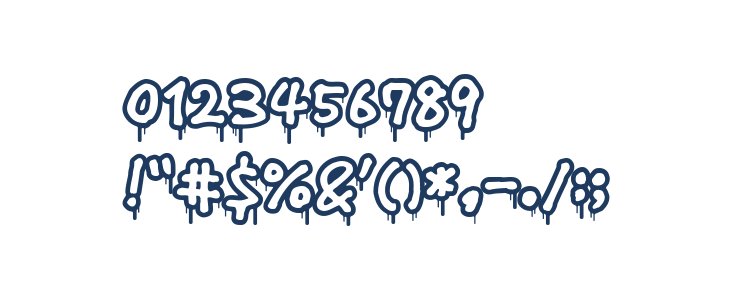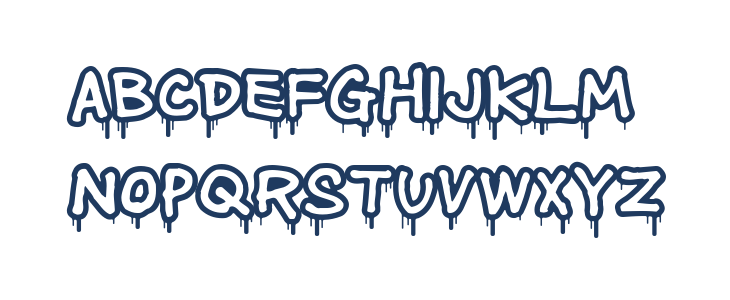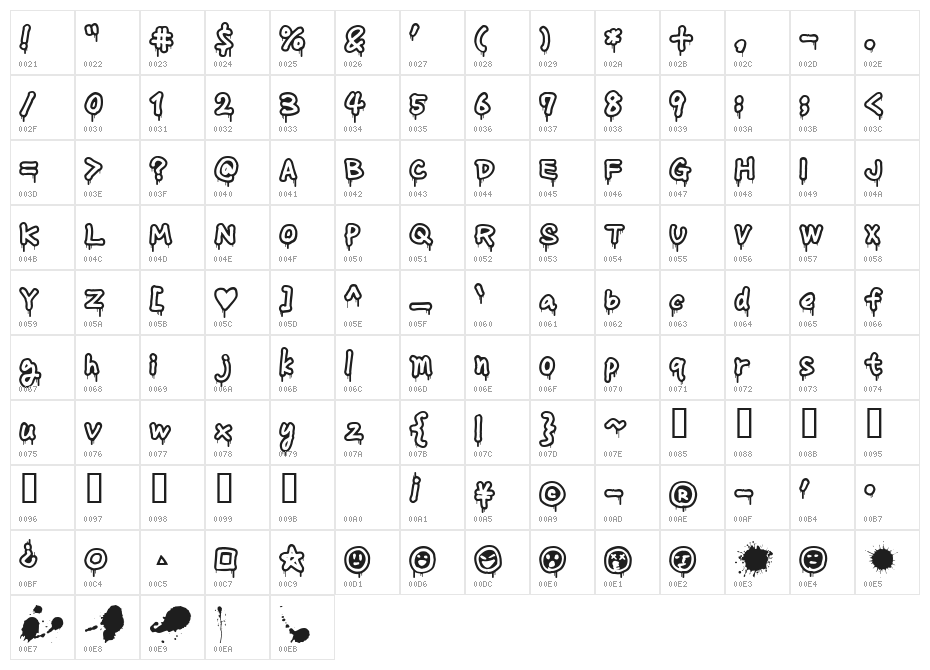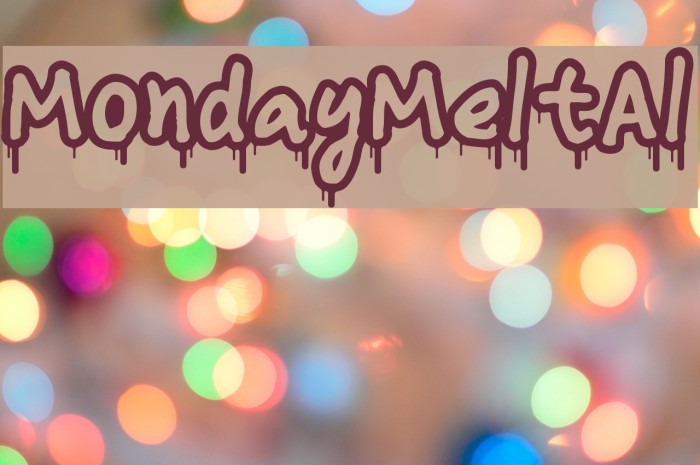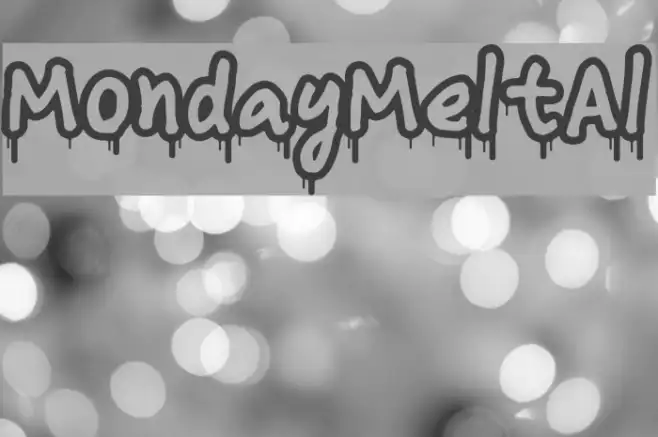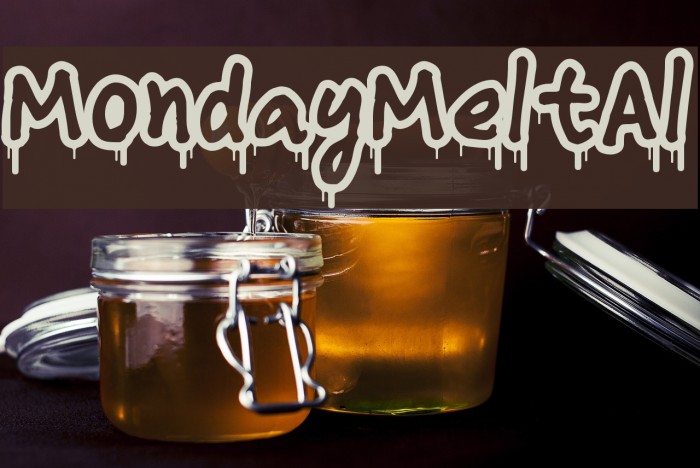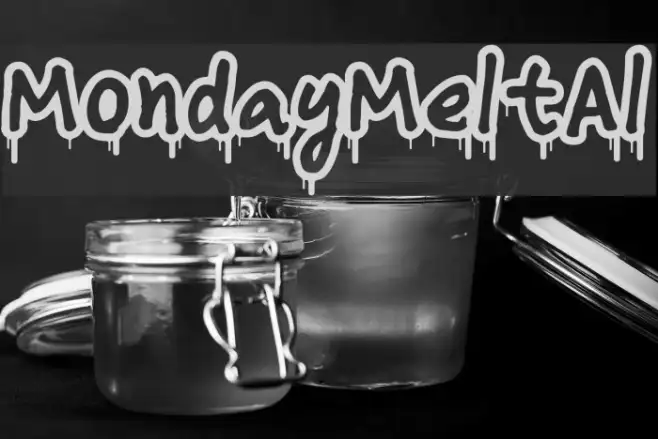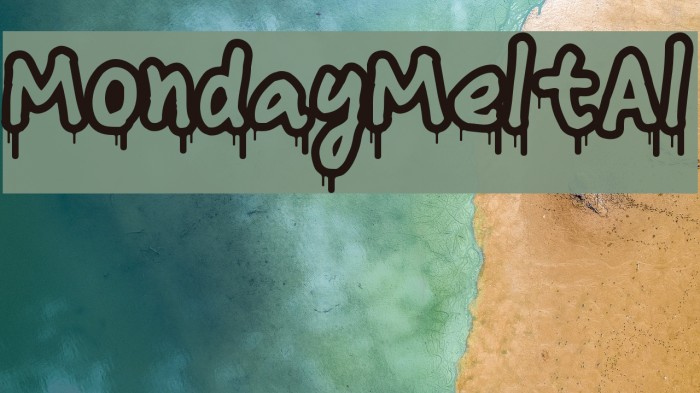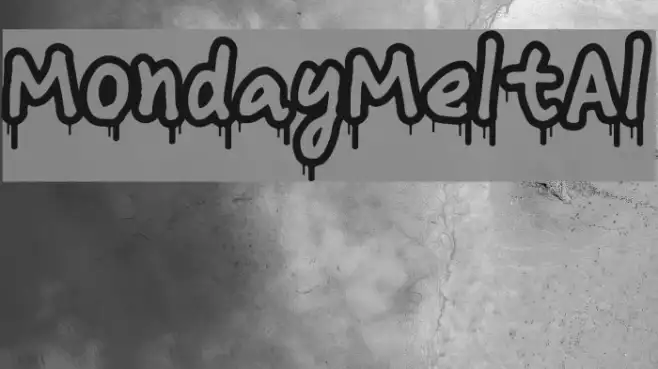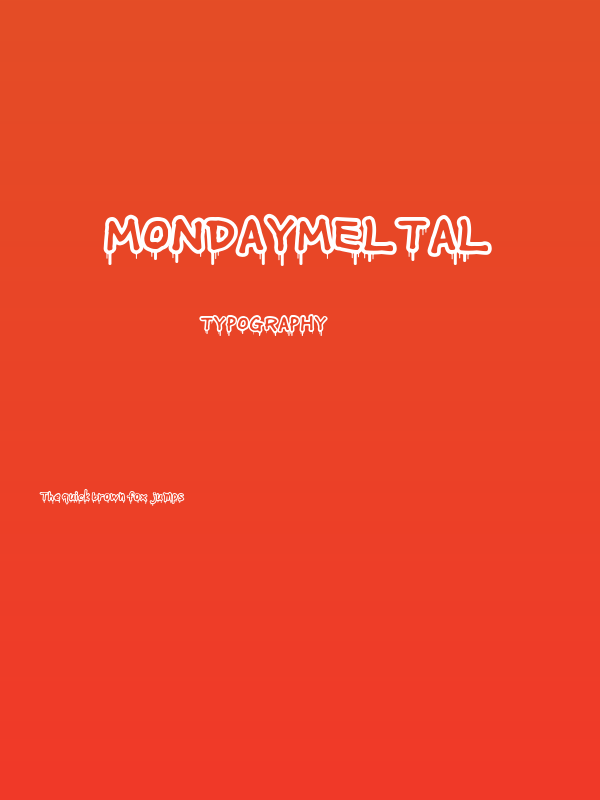
MondayMeltAl Font
MondayMeltAl Description
This playful and eye-catching font features a unique dripping effect, giving the impression of melting or liquid letters. The bold, rounded characters are outlined, creating a striking contrast between the thick black borders and the white interior. The font's whimsical style is reminiscent of graffiti or street art, making it ideal for projects that require a fun and informal touch. The uppercase and lowercase letters maintain consistent styling, while numbers and special characters are designed to match the overall theme. This font is perfect for creative projects that aim to capture attention and convey a sense of movement or fluidity.
| Proposed Projects | Ideal for posters, album covers, event flyers, and children's book titles. |